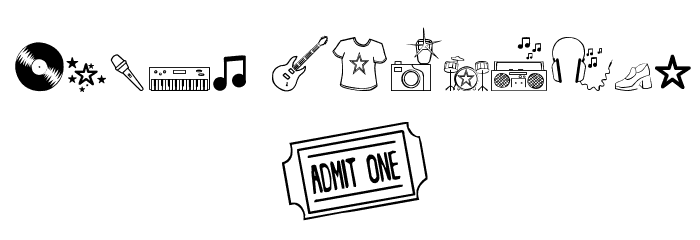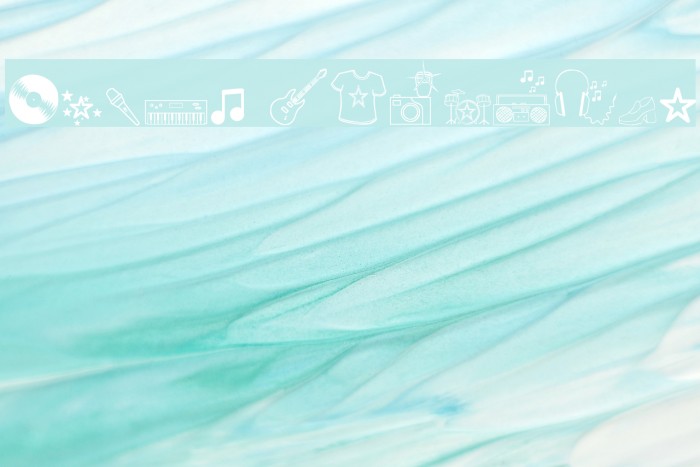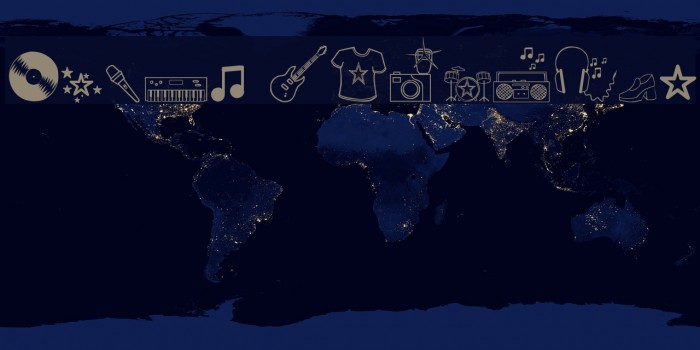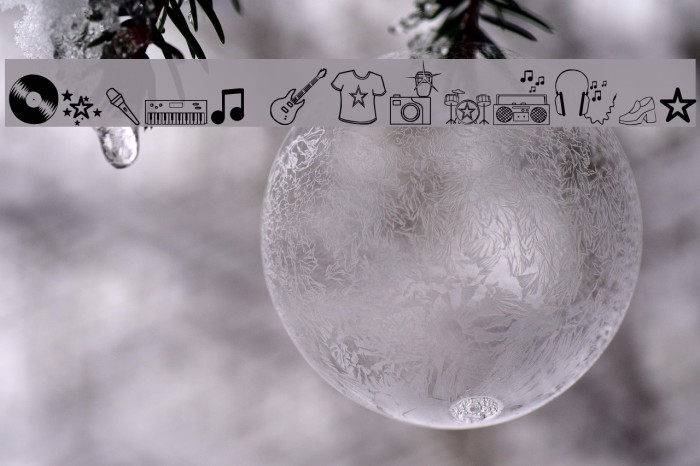
Rock Star Font
This is not a traditional font but rather a collection of music-themed icons and symbols. The design includes various elements such as a vinyl record, microphone, keyboard, musical notes, guitar, t-shirt with a star, camera, drum set, boombox, headphones, high-heeled shoe, and a star. Each icon is rendered in a simple, black and white line art style, giving it a clean and modern appearance. The icons are playful and convey a sense of fun and creativity, making them suitable for projects related to music, entertainment, or events.
A collection of music-themed icons in a clean, modern line art style.
- Proposed Projects: Ideal for music event posters, album covers, merchandise design, and entertainment-themed graphics.
- Use Case: Icons, Decorative elements